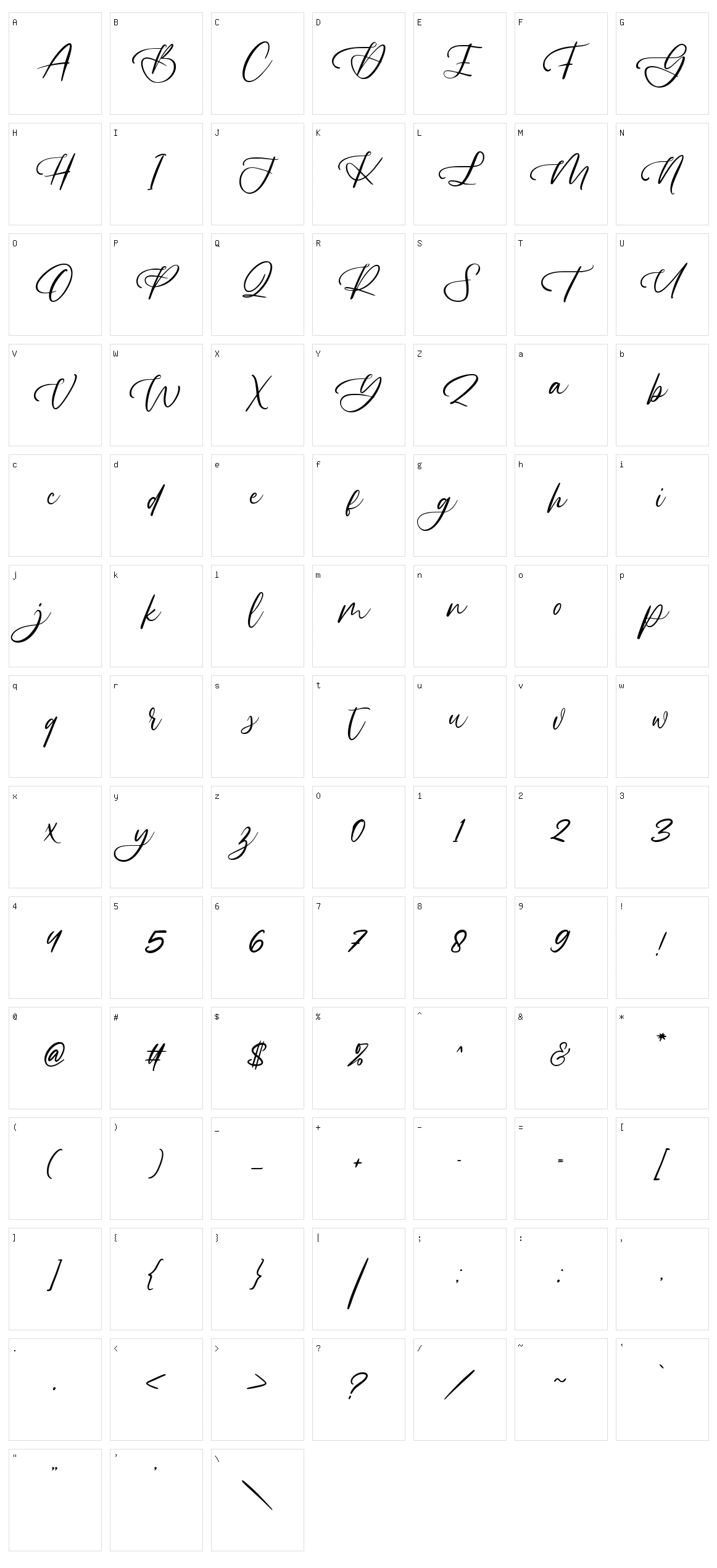
The free font Golden Bloom is carefully designed by Damarletter, showcasing a thoughtful balance of creativity and usability and falls under the Script font style. When you download the ZIP file, it contains only 316.98 KB of font files, making it lightweight and quick to download. Please review the license details below to understand permitted usage and distribution rights. If license information is not available, we recommend using this font for personal projects only or contacting the author directly for commercial usage permissions.